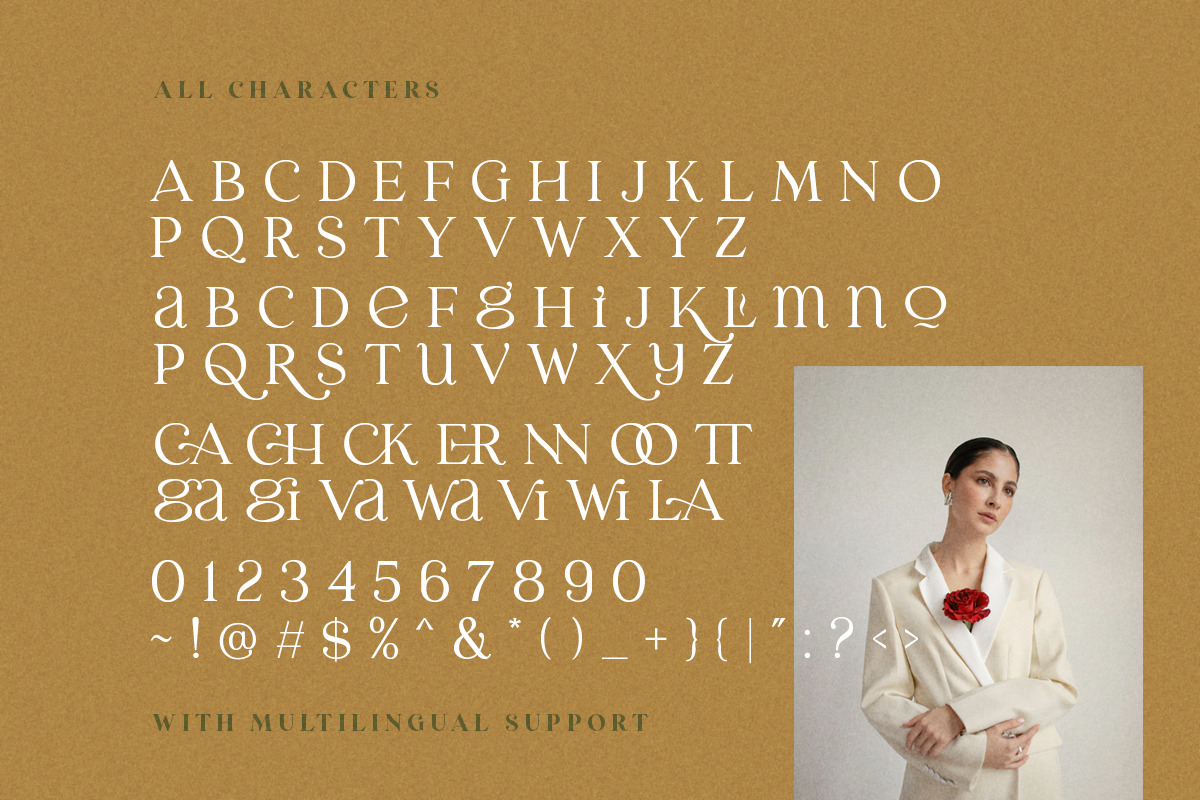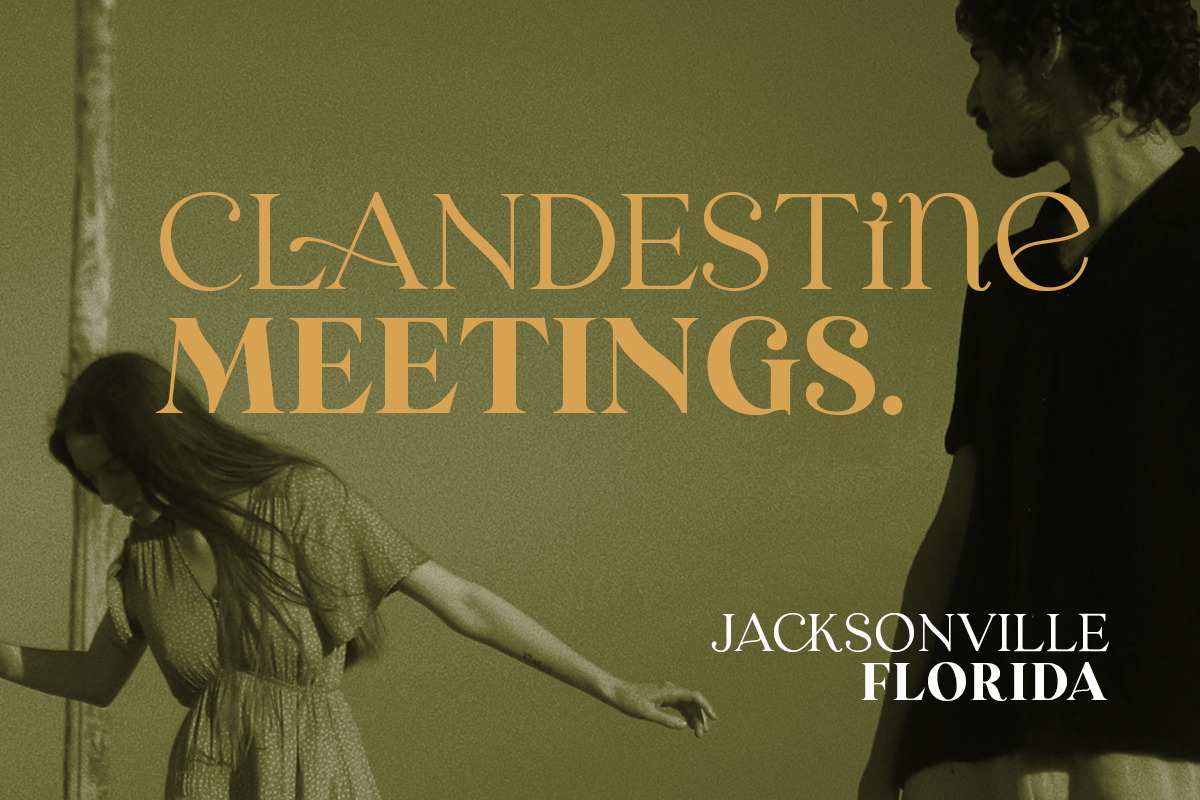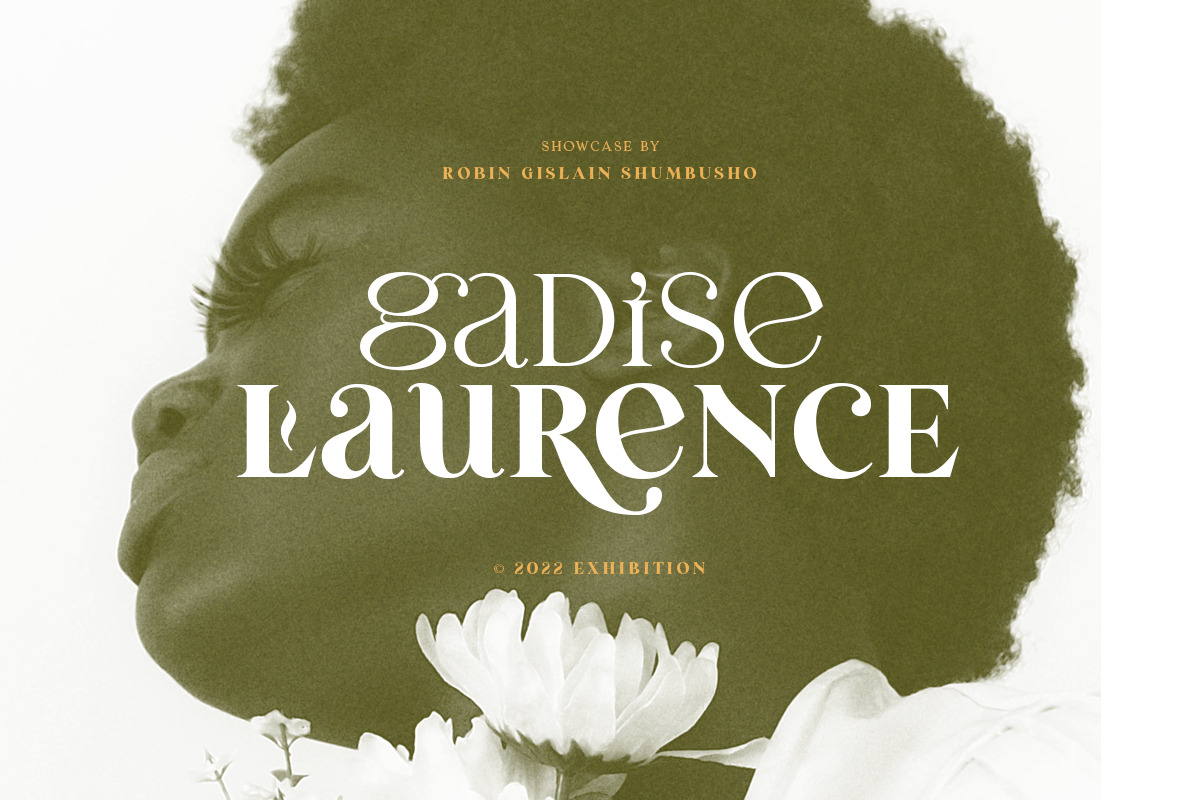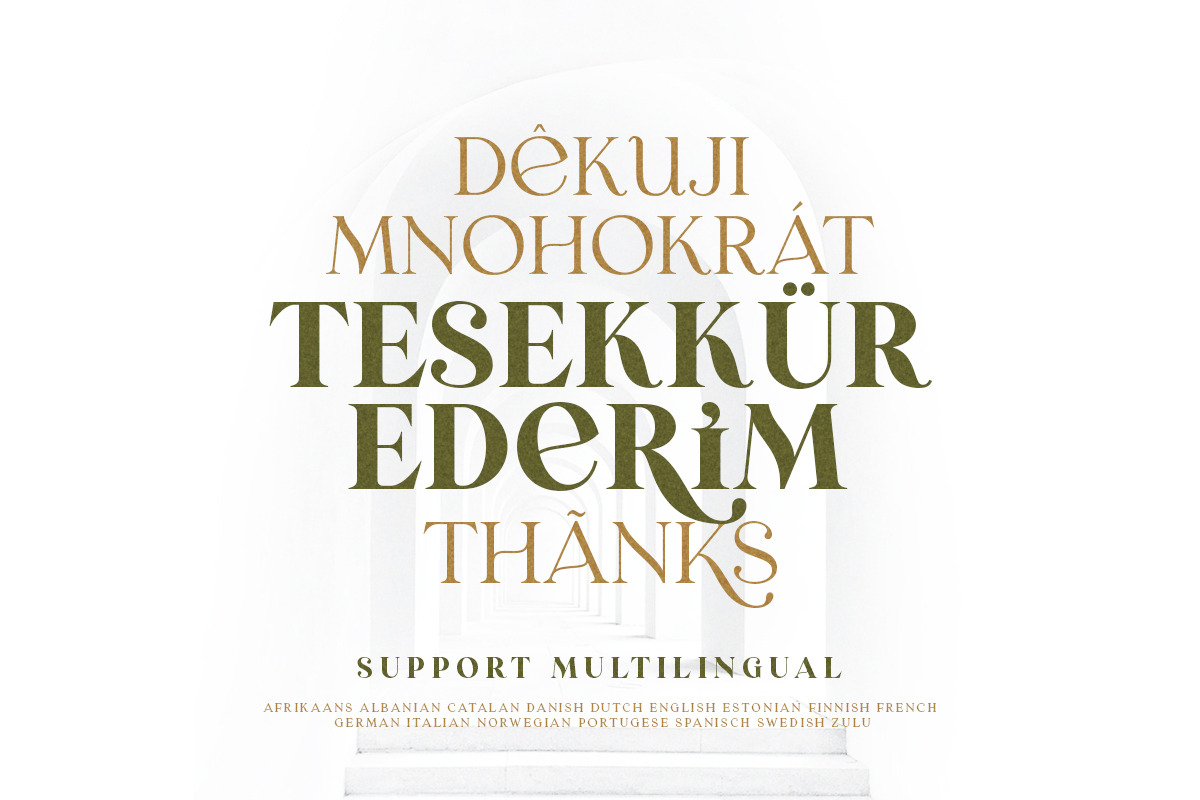
Laginchy Serif - (Regular & Bold)
Laginchy is a quirky and modern serif that comes in value package with two wight. With unique lowercase, this fonts will make your presentation, poster, or logo even more stunning and stand out! Also comes with stylish ligatures! This fonts support Multi Language and already PUA Encoded!
- Uppercase with unique lowercase
- Multi language
- Stylish ligatures